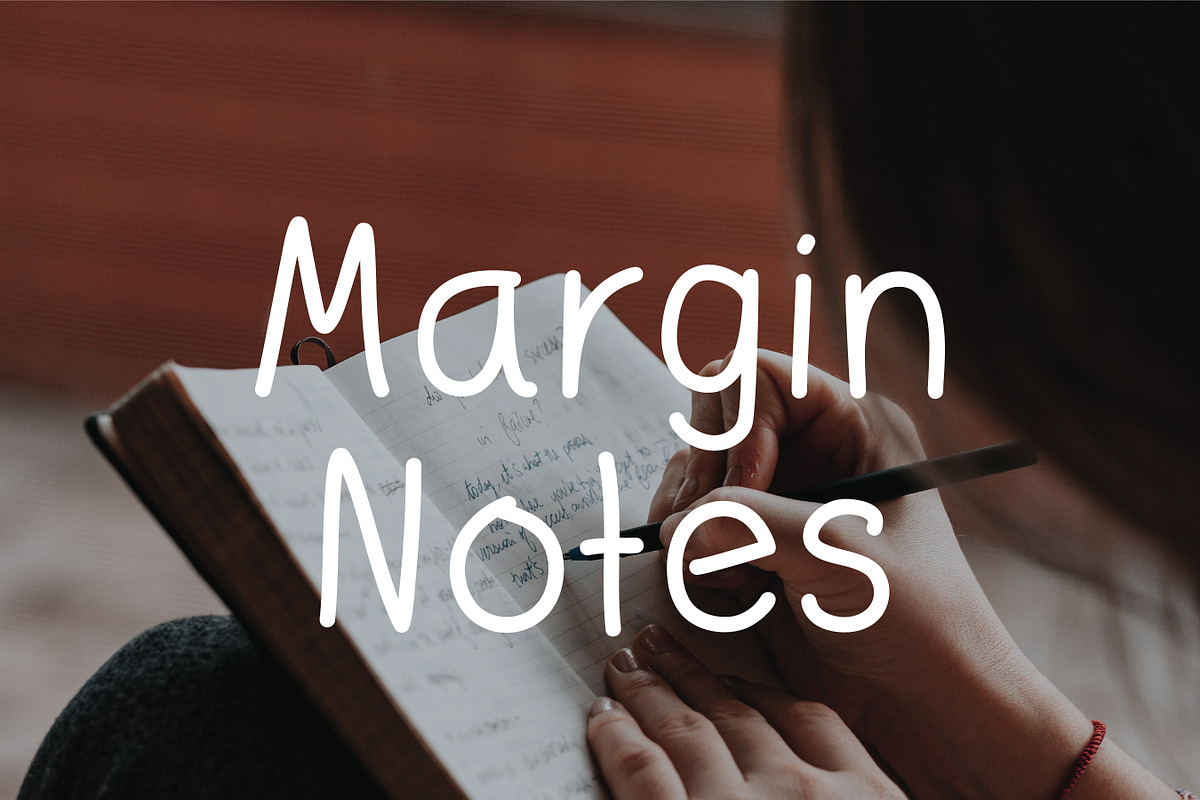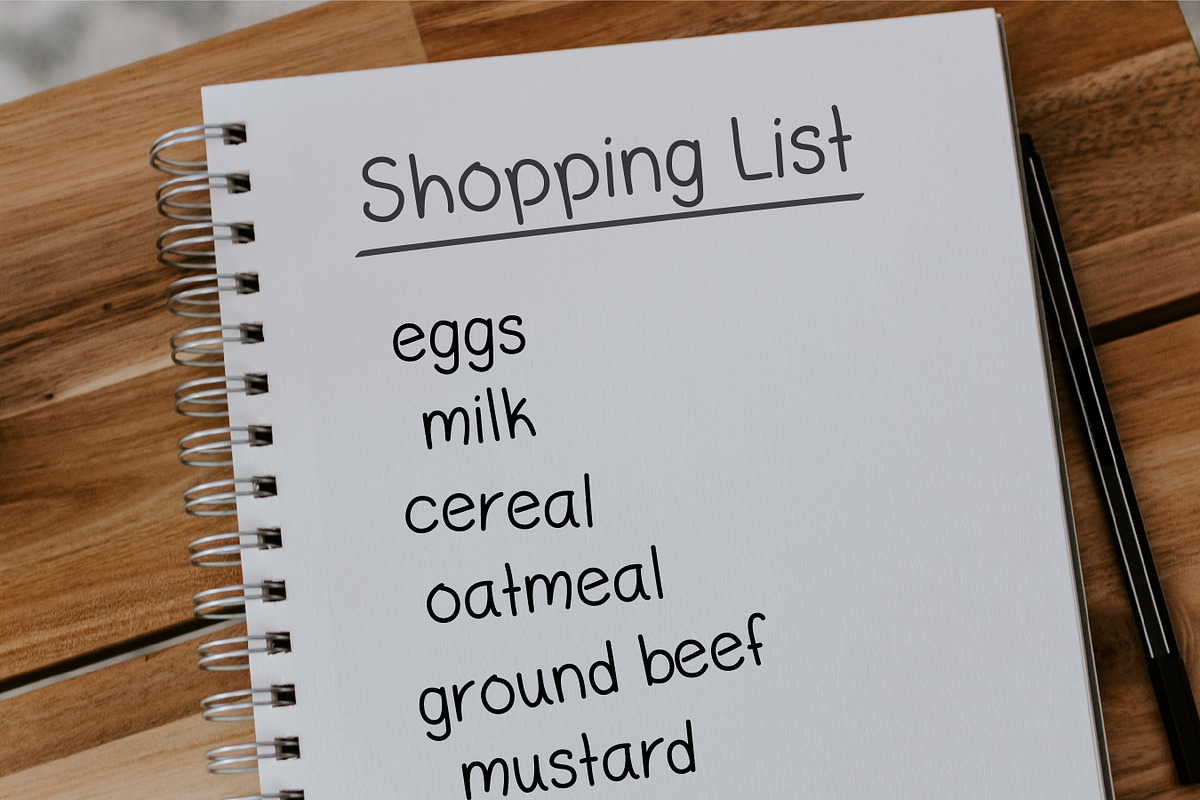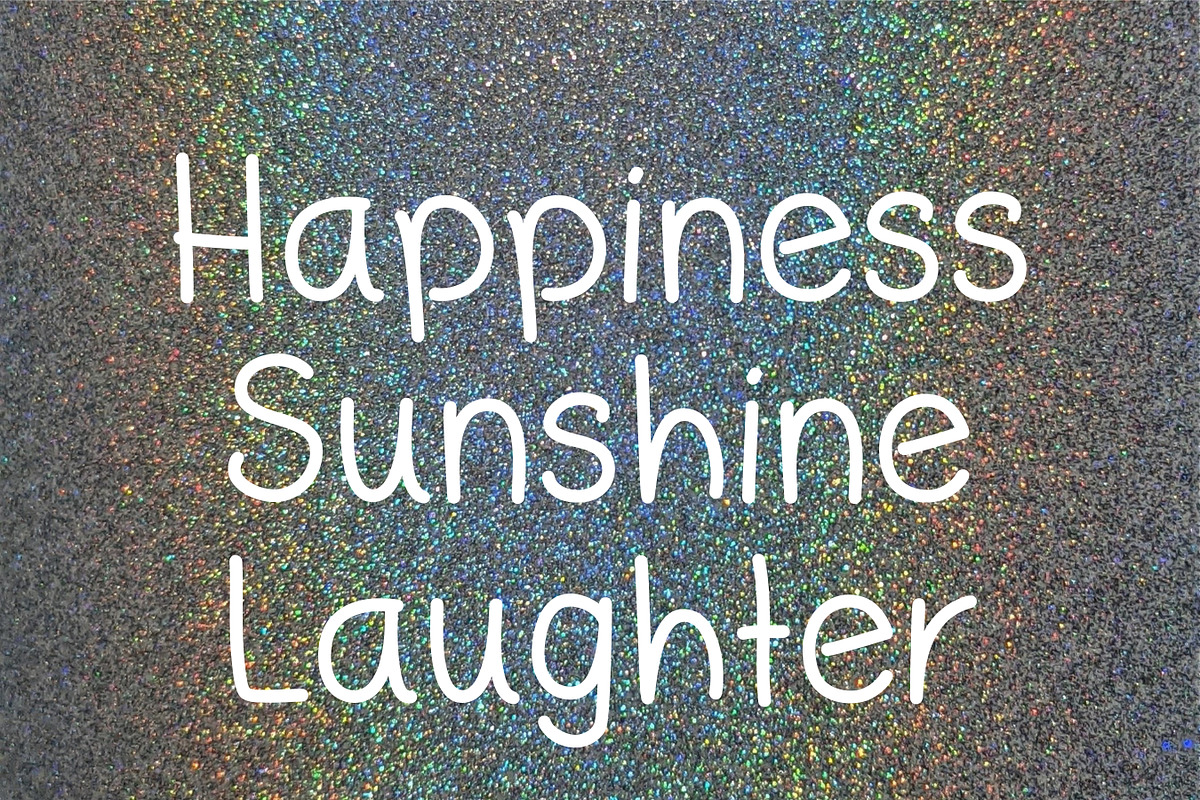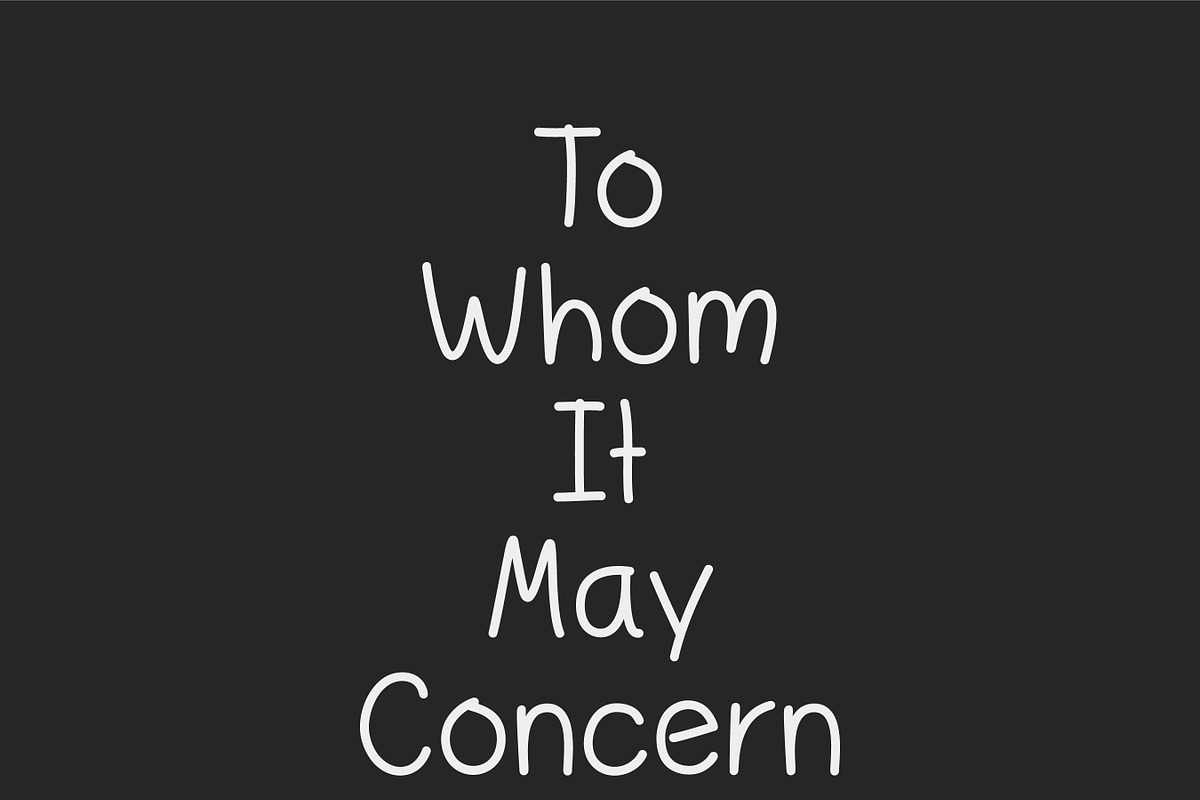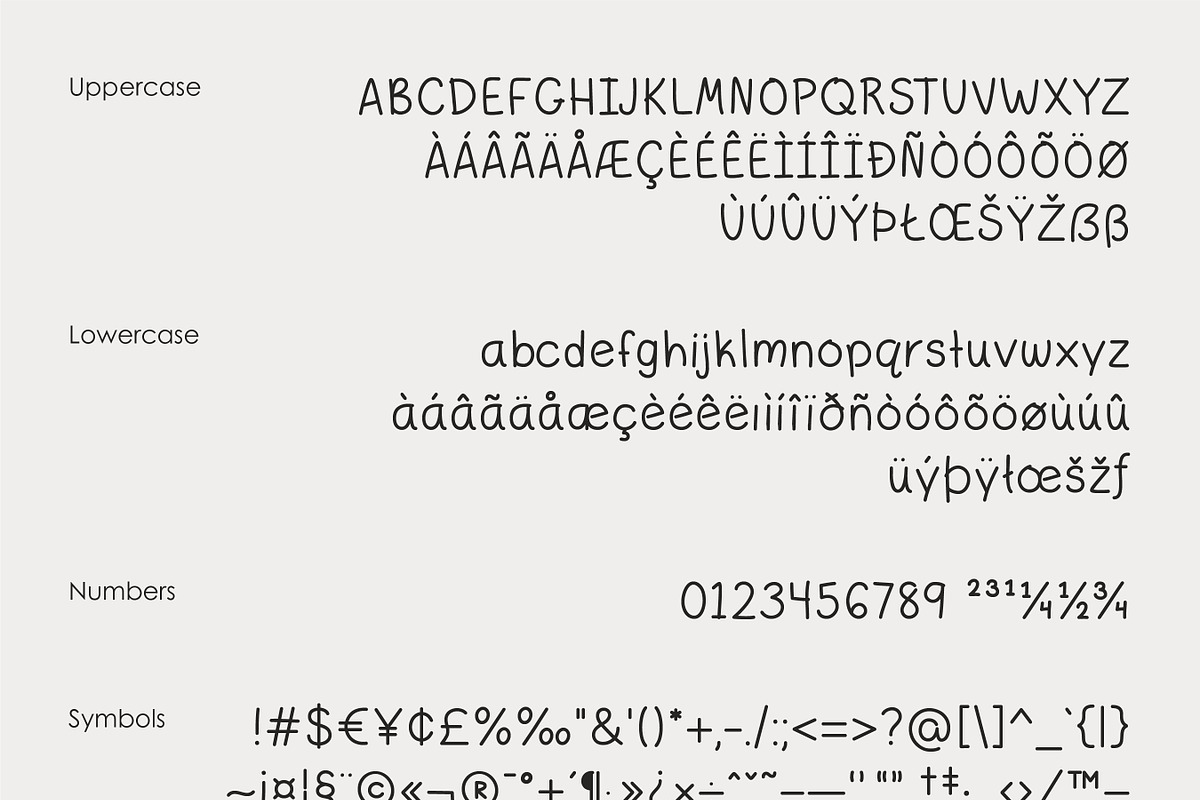
Margin Notes Font
Margin Notes font offers a natural handwriting look. It had imperfect, organic curves and offset lines that imitate natural handwritten writing. Give this handwriting font a try with note-taking, organization, or even a back-to-school poster. Includes international support.